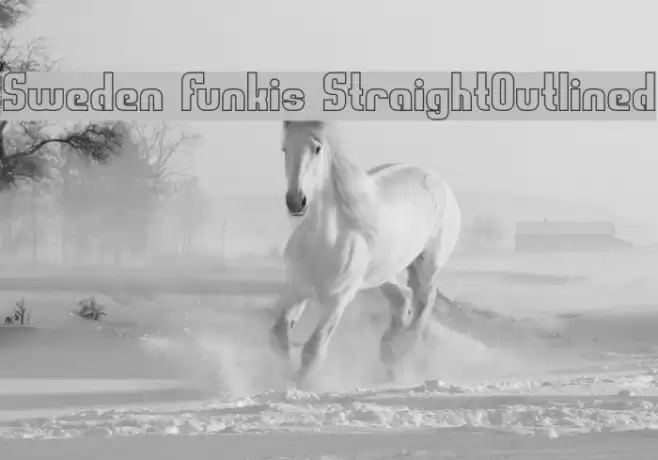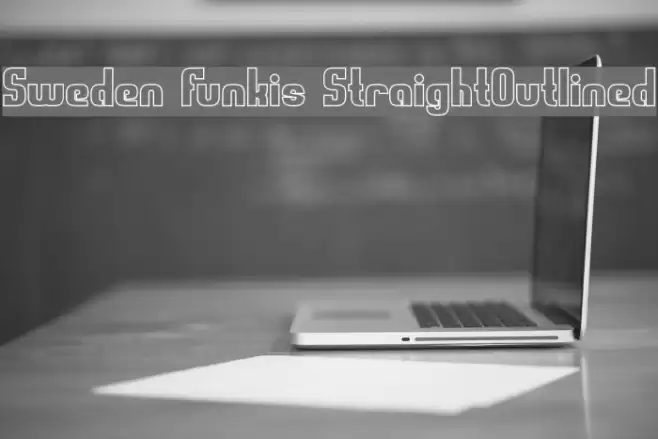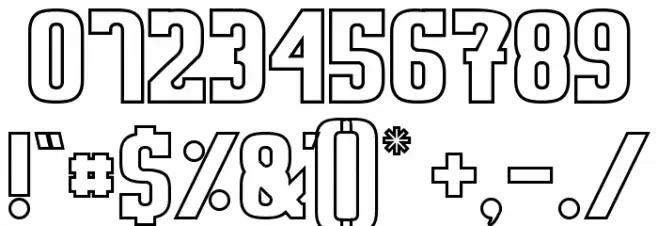
Sweden Funkis StraightOutlined Font
Sweden Funkis StraightOutlined Description
This font features a modern, outlined style with a geometric and structured appearance. Each character is defined by a bold outline, creating a hollow effect that emphasizes its shape. The uppercase and lowercase letters maintain a consistent width, providing a uniform look across the alphabet. The numerals and special characters follow the same design principles, ensuring cohesion throughout. The font's clean lines and lack of serifs contribute to its contemporary aesthetic, making it suitable for eye-catching designs.
A modern, outlined font with geometric shapes and a structured appearance from Uncategorized fonts.
- Proposed Projects: Ideal for posters, logos, and headlines where a bold, modern look is desired.